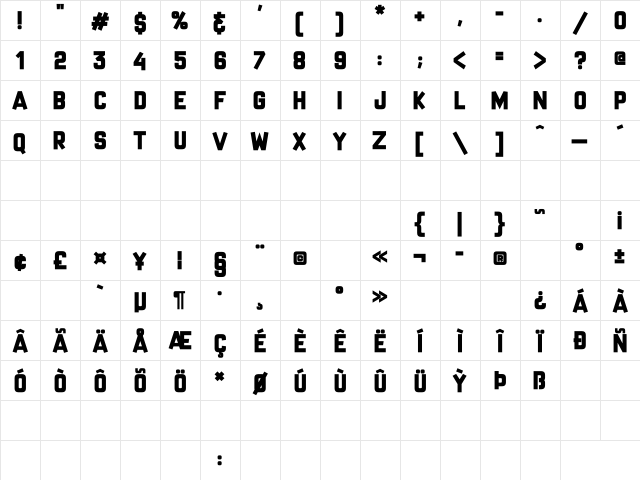
Mr Headlines Fancy Regular
Design Context for Mr Headlines Fancy Typeface
Mr Headlines Fancy takes a measured approach to typography — its balanced proportions and neutral character make it a reliable workhorse for both digital and print work.